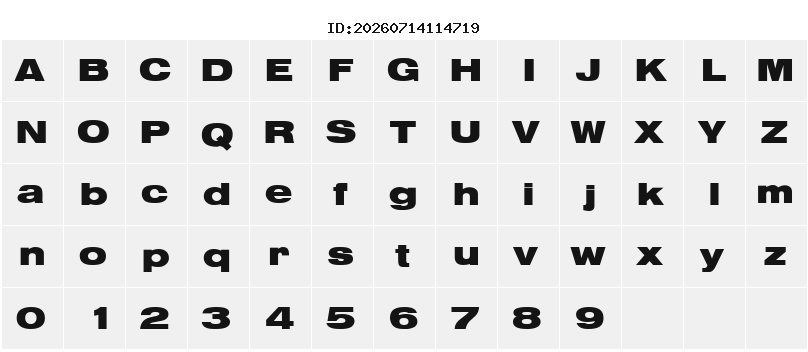
• Font Name: HegelExtended DB
• Full Font Name: HegelExtended-Bold DB
HegelExtended DB.ttf is a modern, elegant sans-serif font designed for ultimate readability and visual harmony. Perfect for branding, headlines, web design, and print materials.